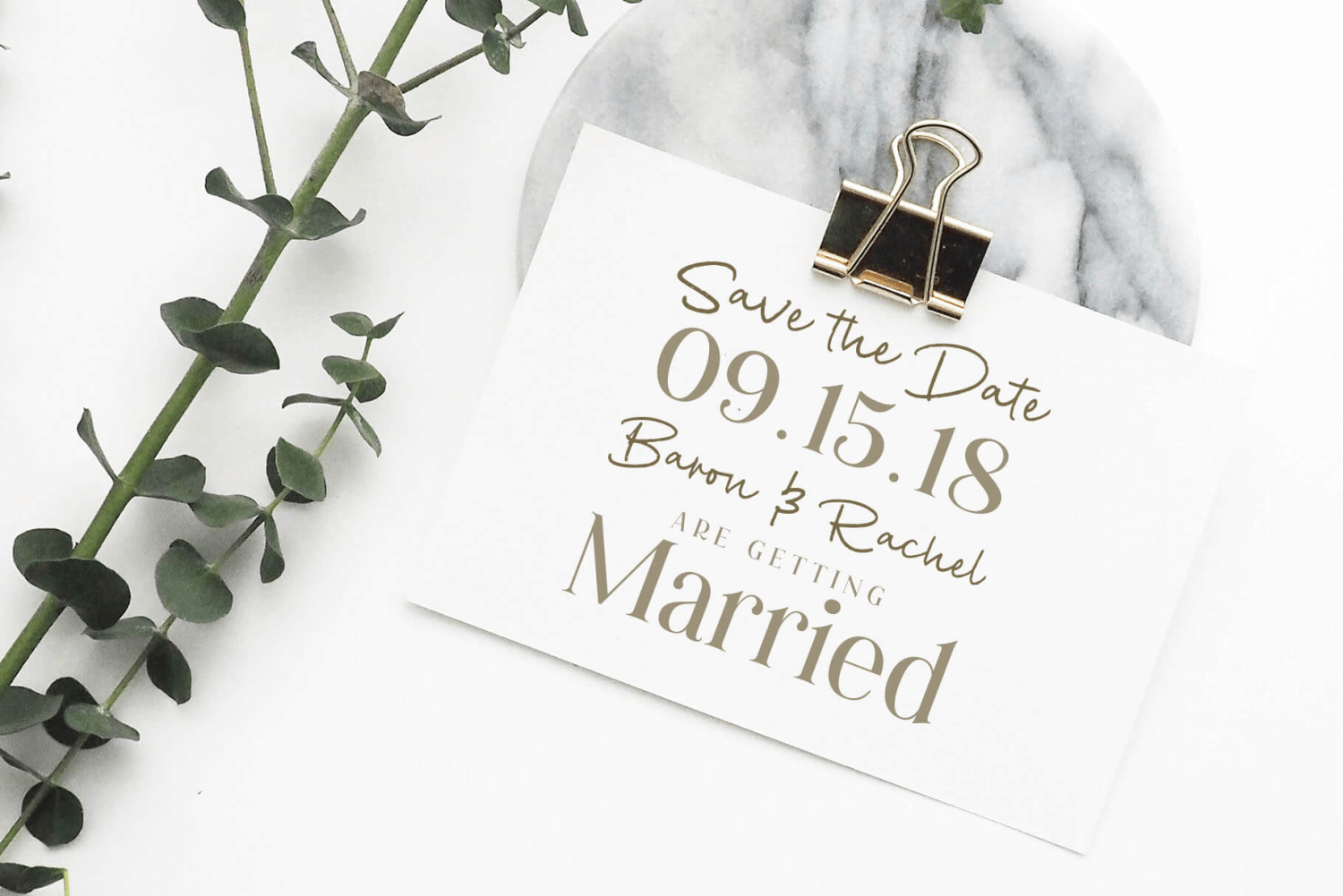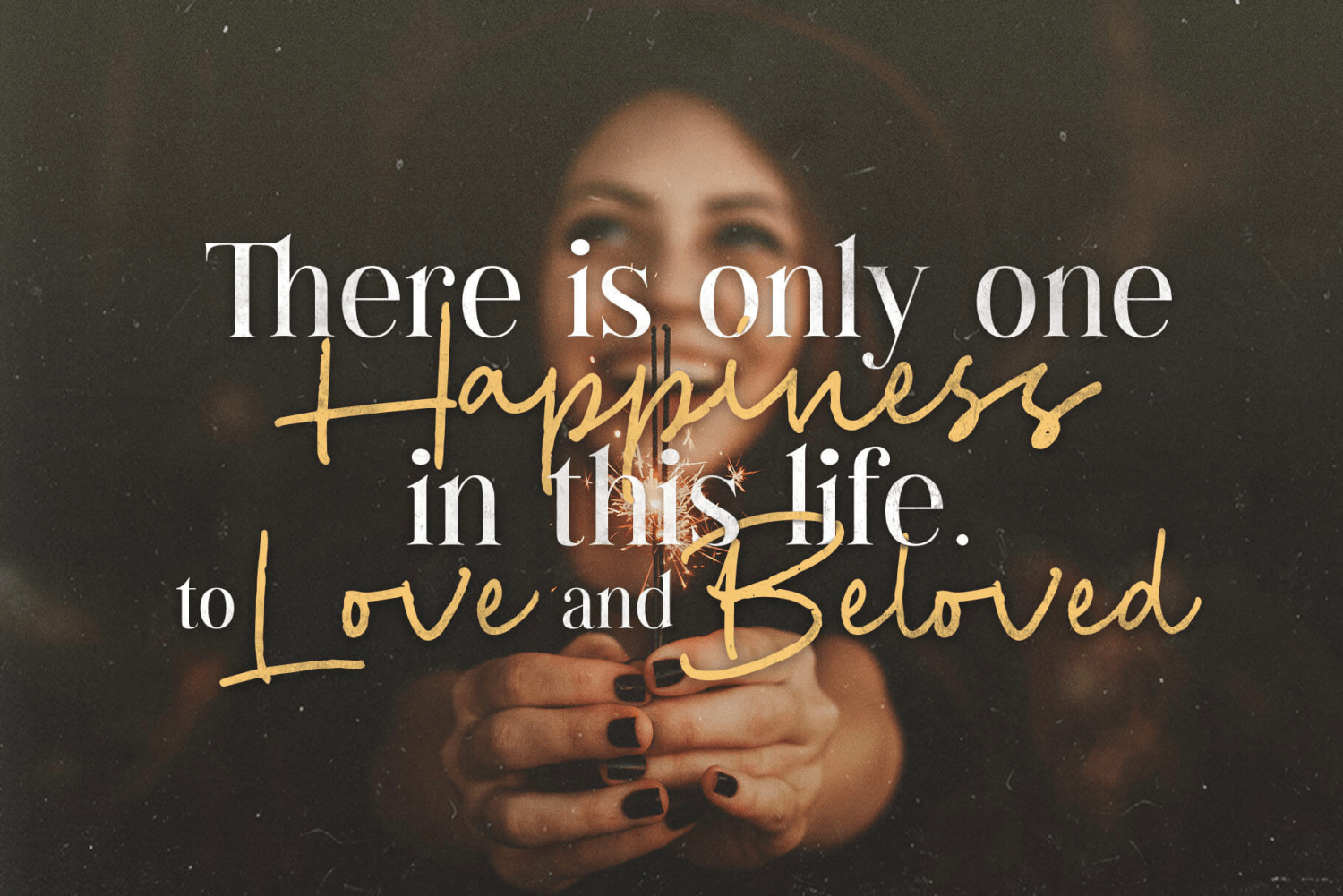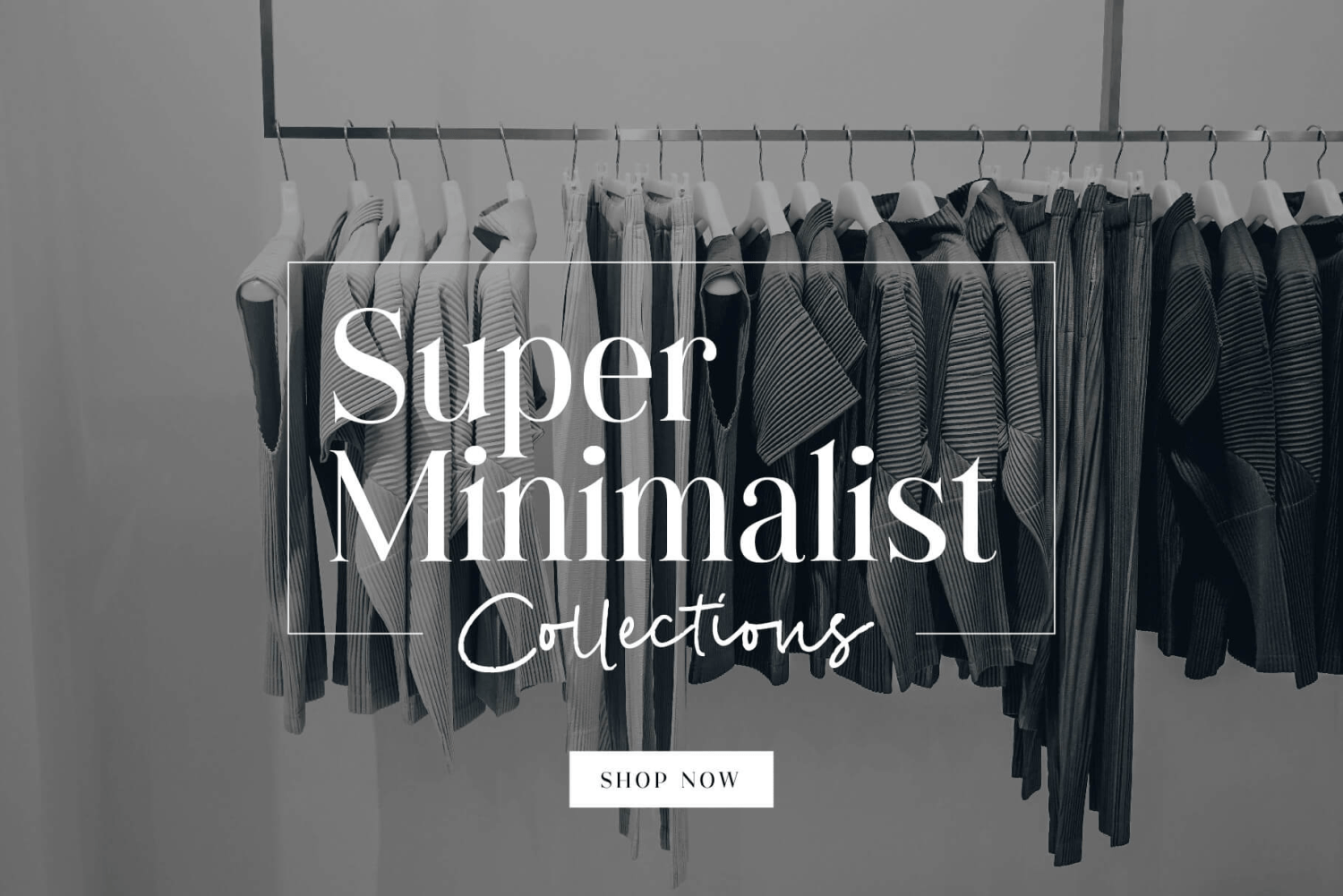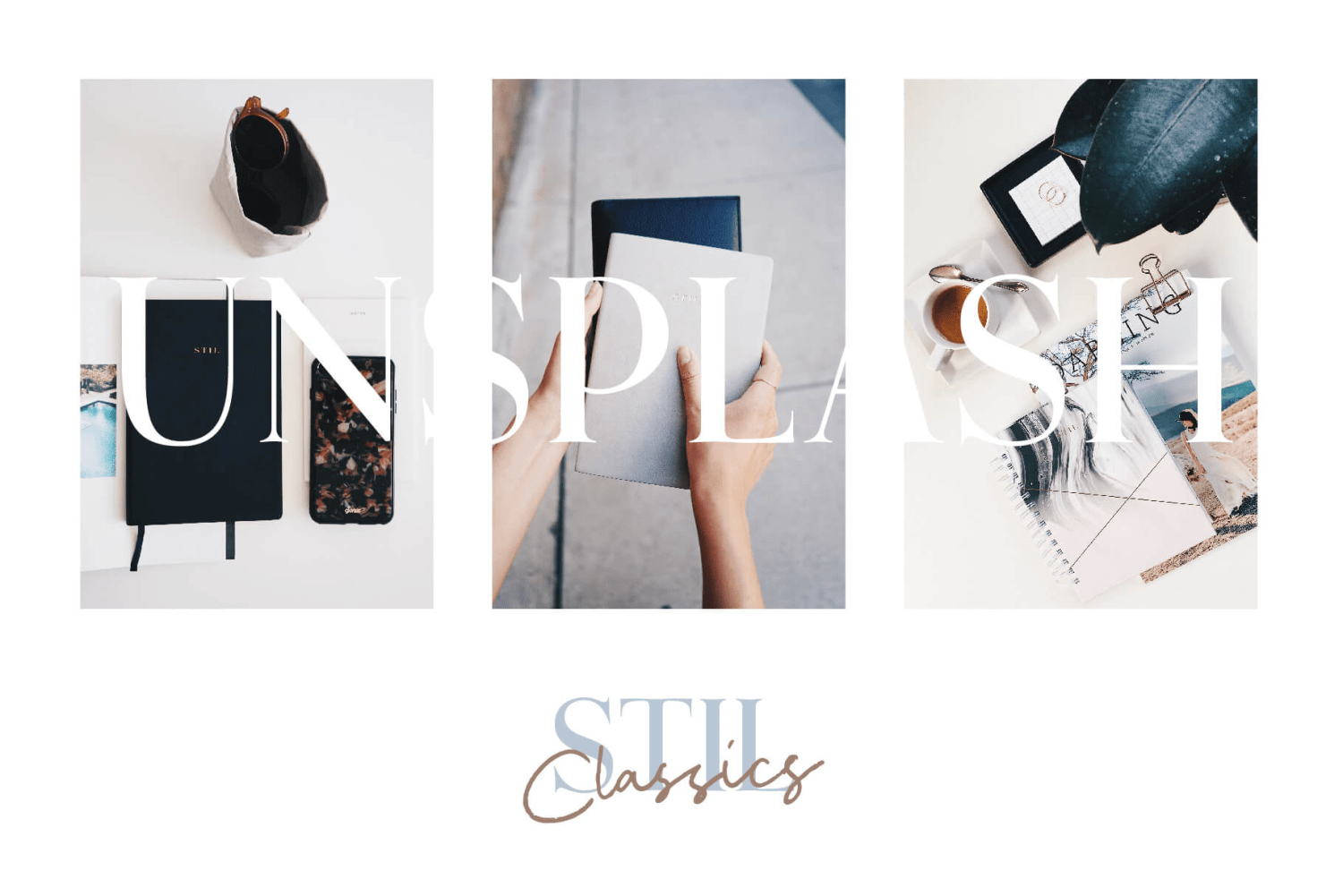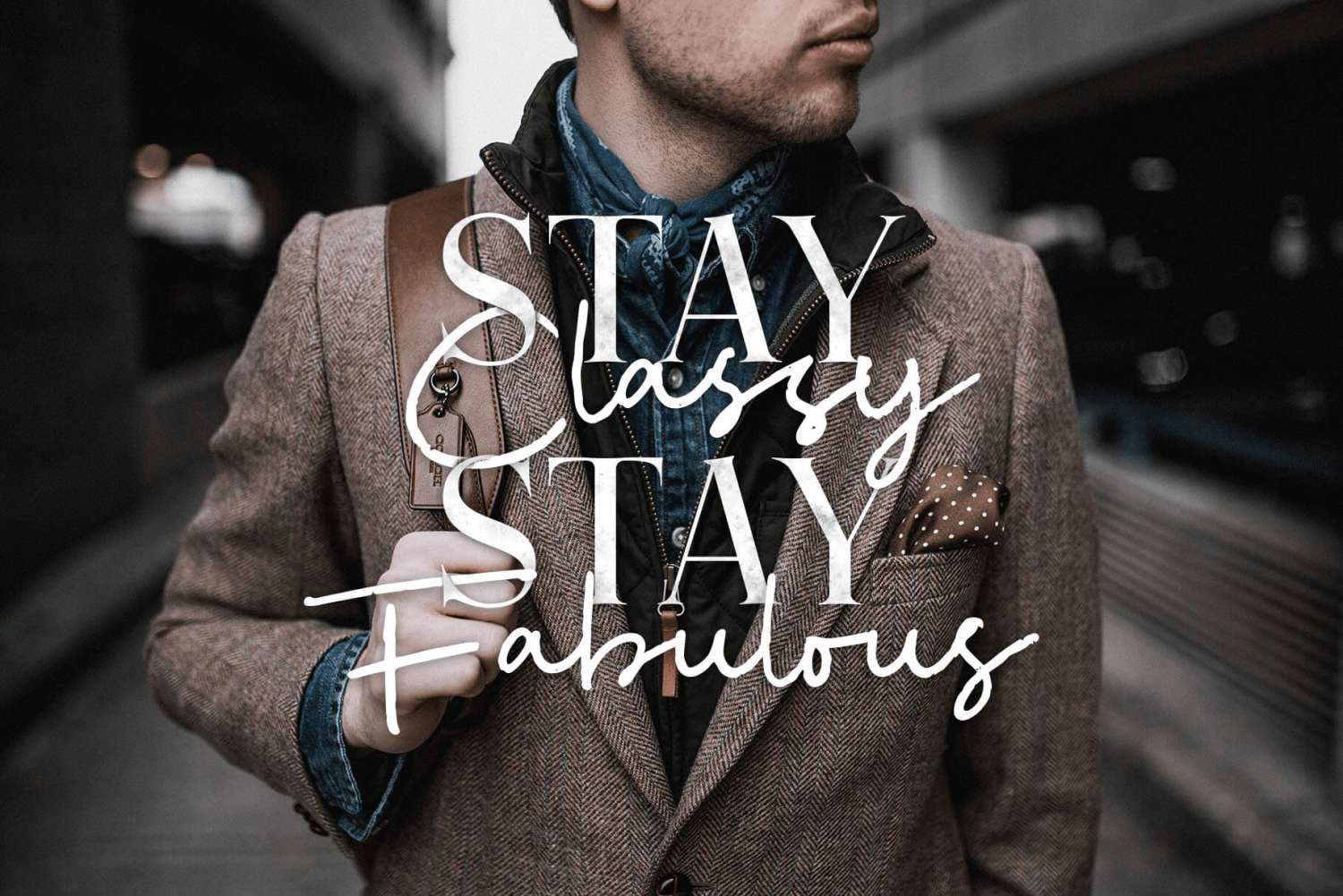
About C\’est Lavie
C'est Lavie is a meaning of Life on French language it means Life. In life everybody sometimes got serious, focus, strong, thinking, and etc. But sometimes life must be enjoy, relax, breath, fun, smiling, laughing and etc. So I presented the great…